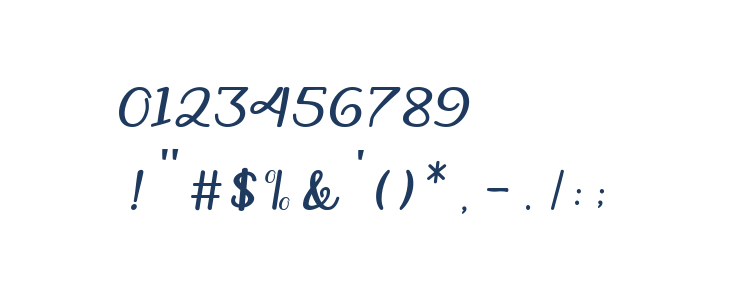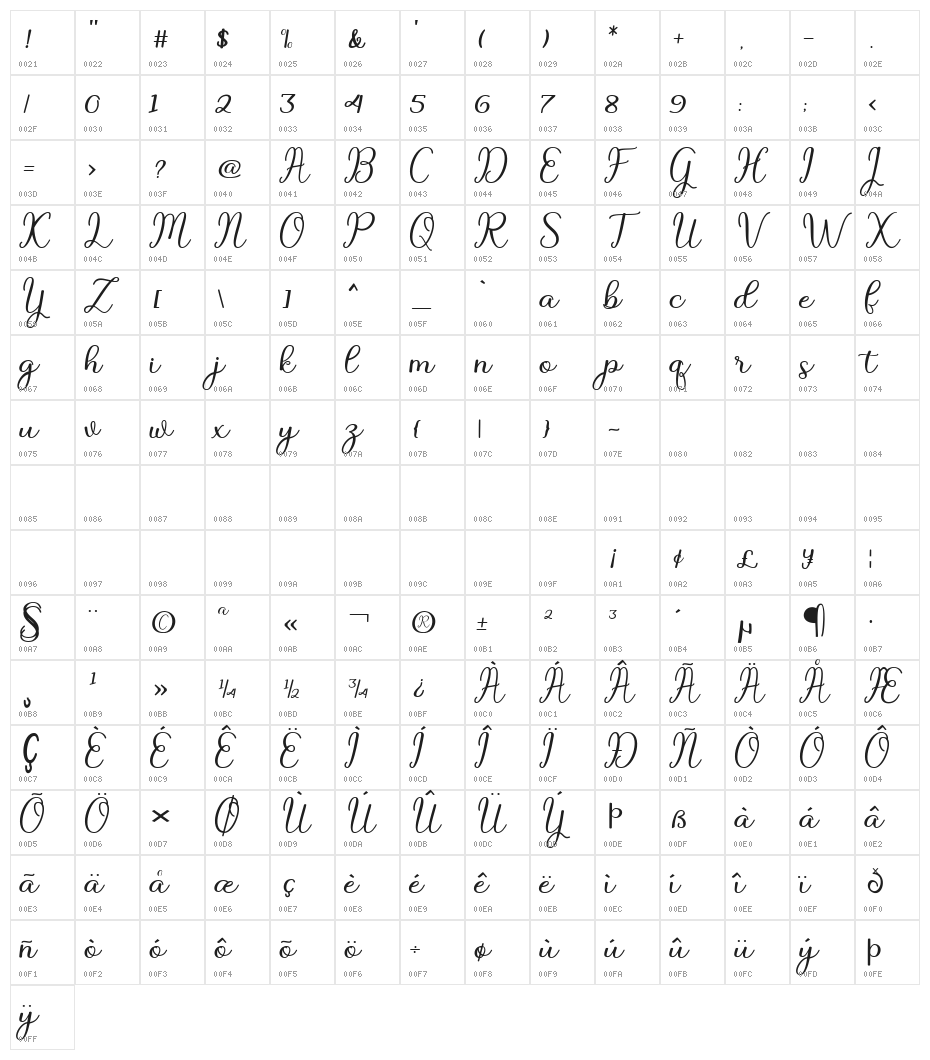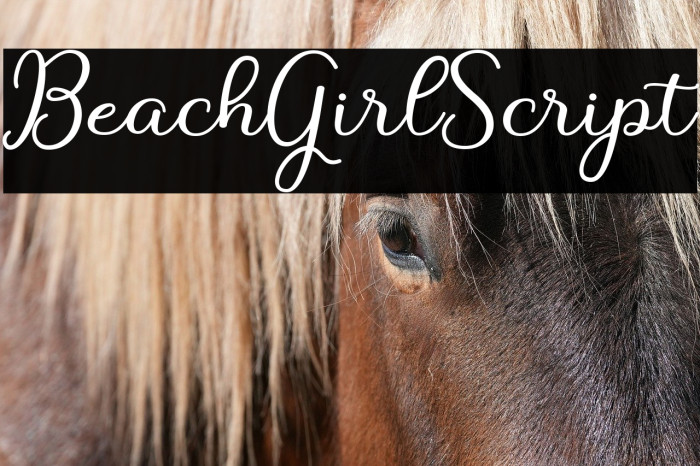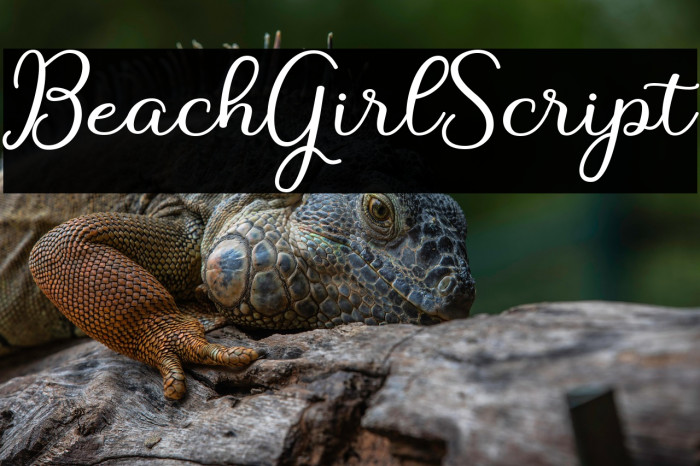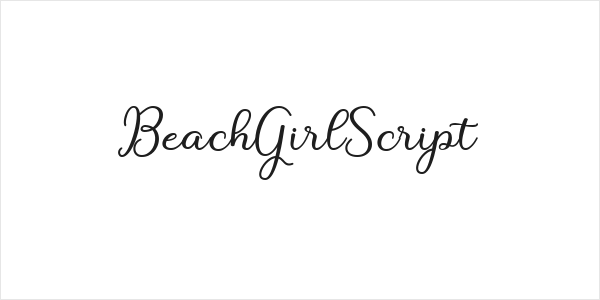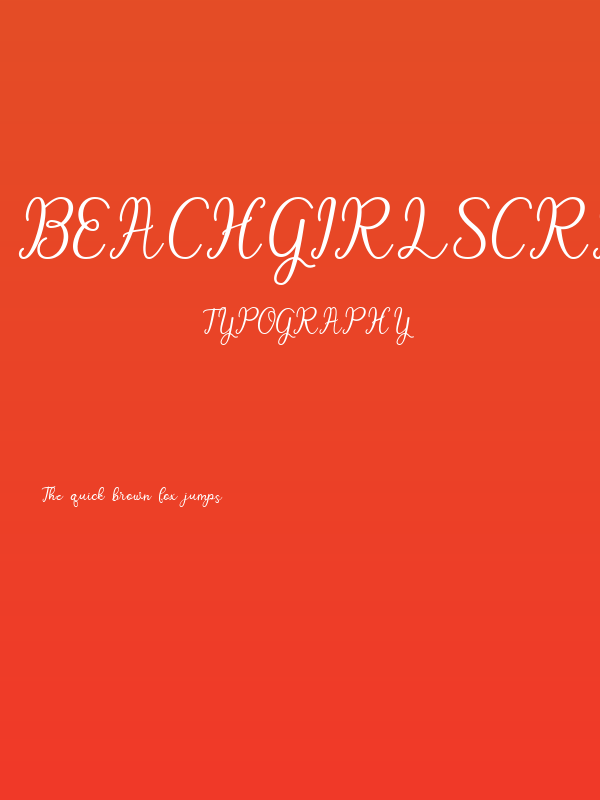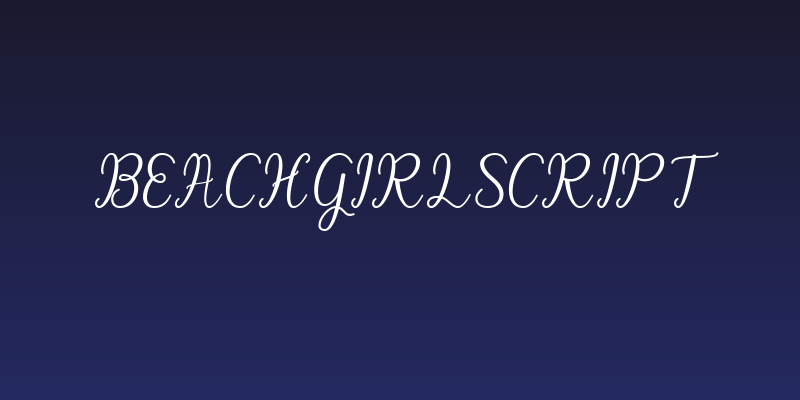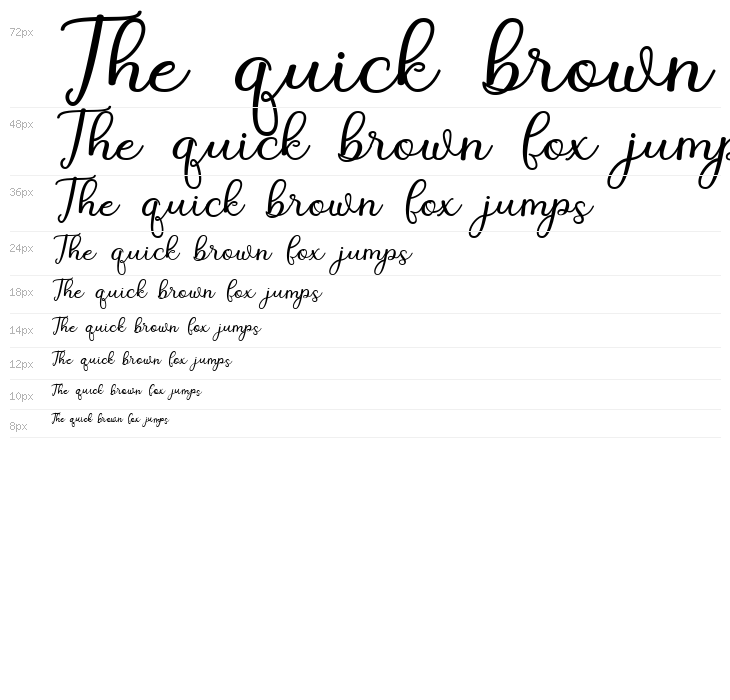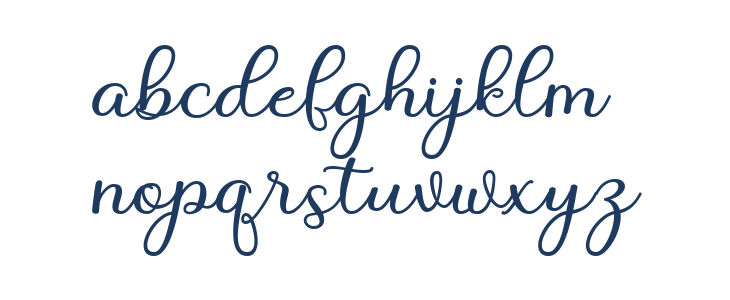
BeachGirlScript Font
BeachGirlScript Description
This font exudes a playful and casual elegance, characterized by its flowing, cursive style. The letters are interconnected with smooth, rounded strokes, giving it a handwritten feel. The uppercase letters are slightly more formal, maintaining a consistent height and width, while the lowercase letters are more varied, with some letters extending below the baseline. The numerals are clear and easy to read, maintaining the same playful style. Special characters are well-integrated, matching the overall aesthetic. This font is ideal for projects that require a personal touch, such as invitations, greeting cards, or branding for creative businesses.
| Overall Style | Casual, Playful |
| Use Case | Headlines, Logos, Invitations |
| Proposed Projects | Invitations, greeting cards, creative branding, personal blogs, and artistic posters. |